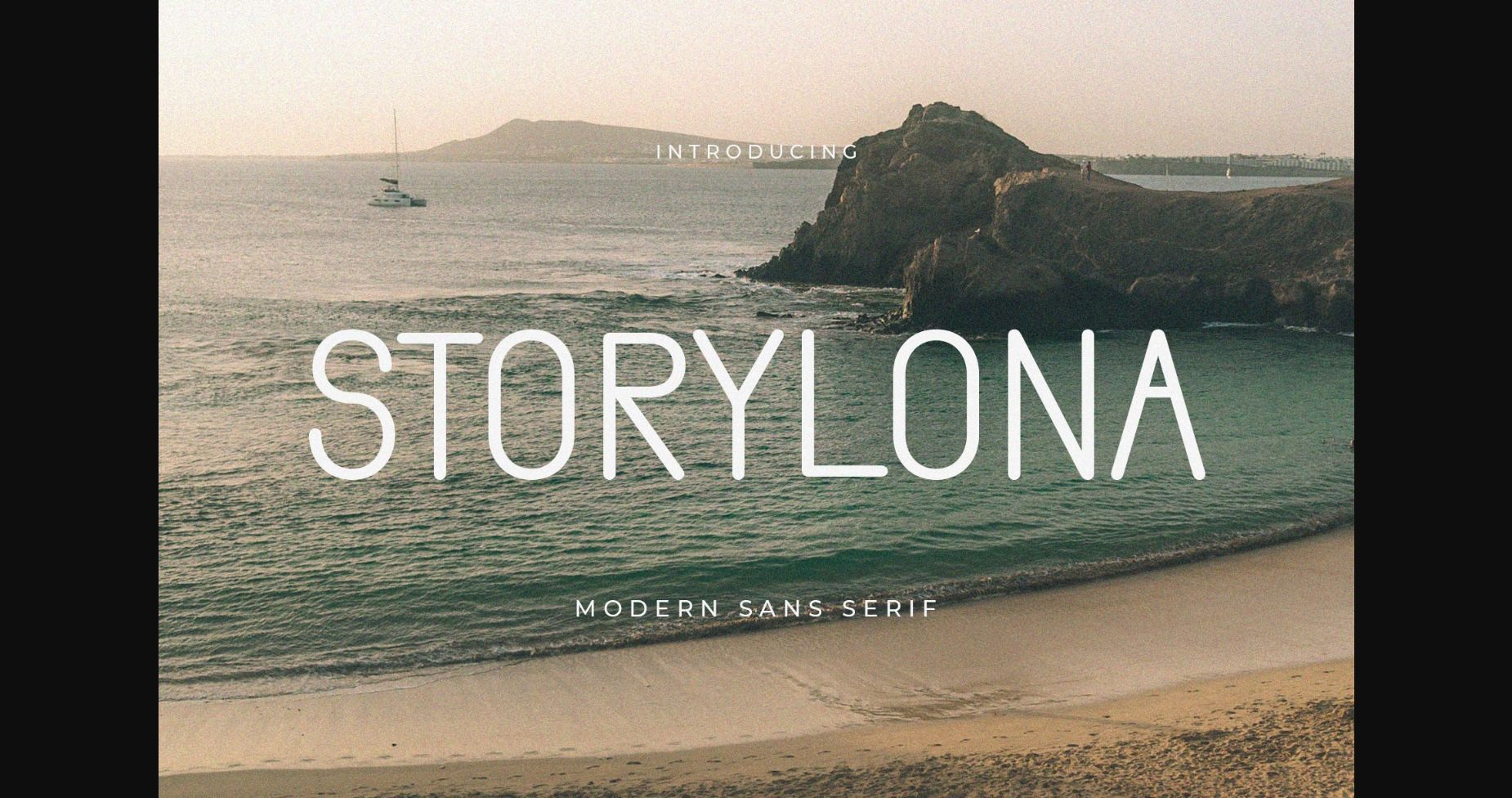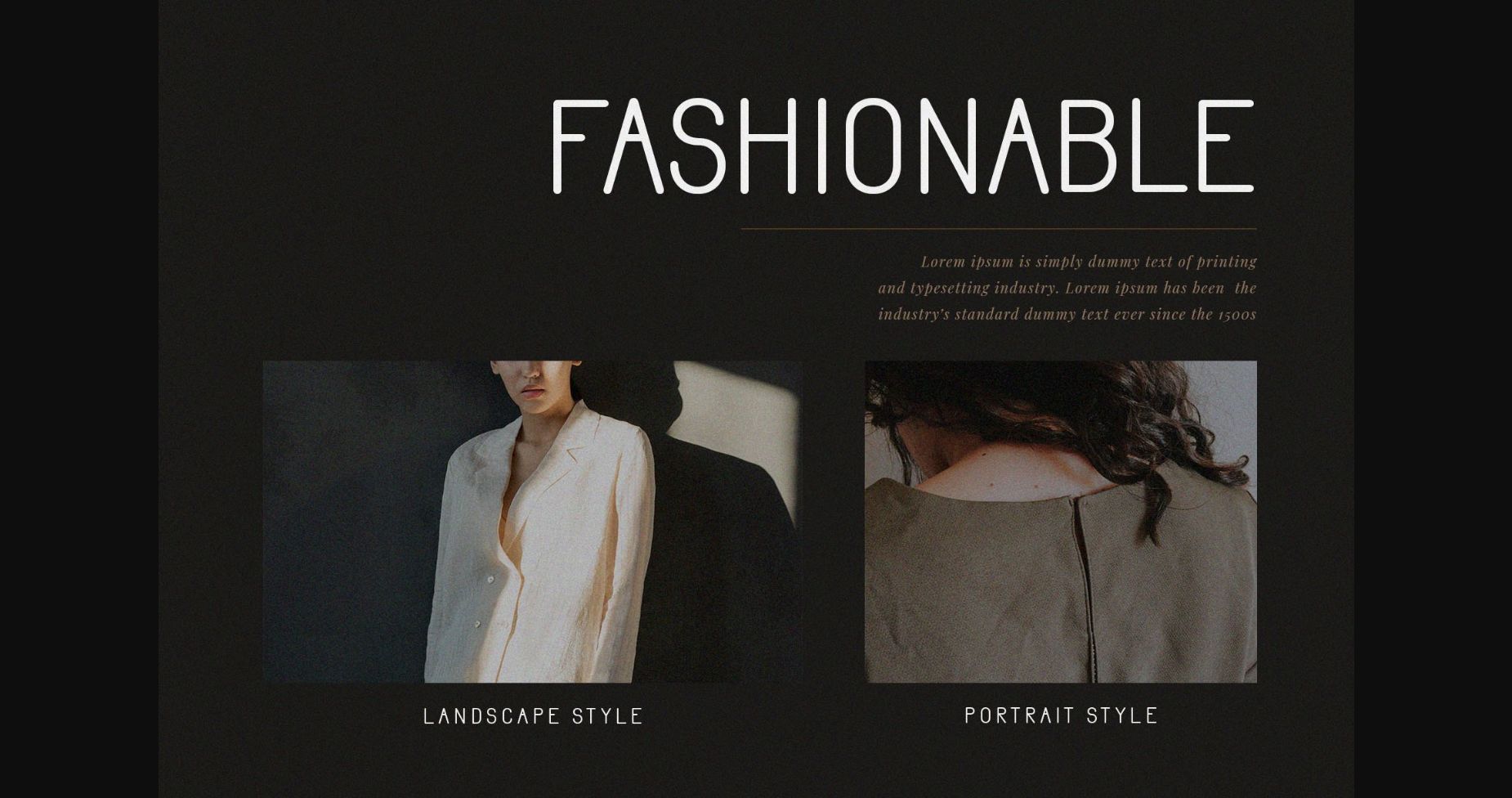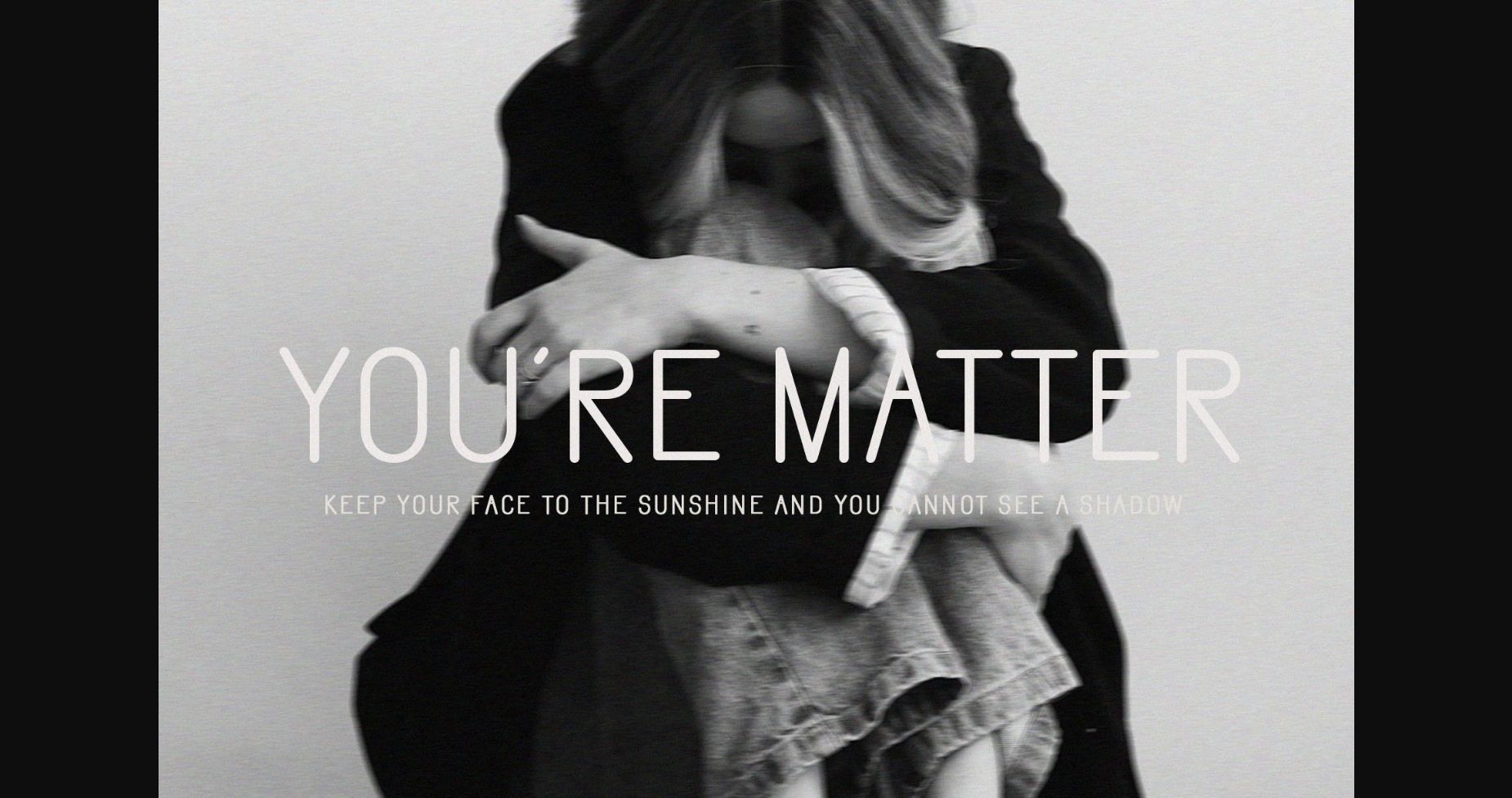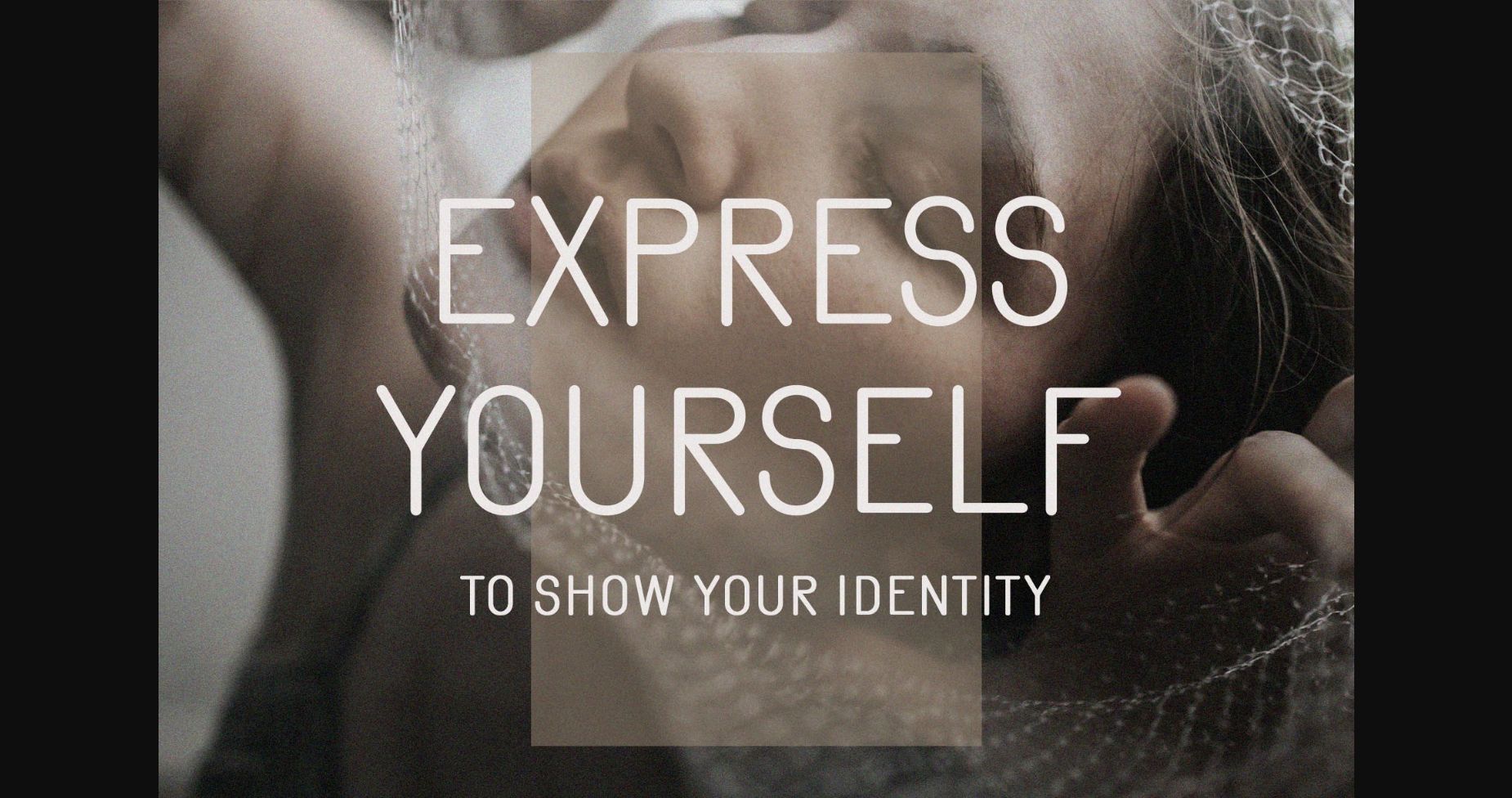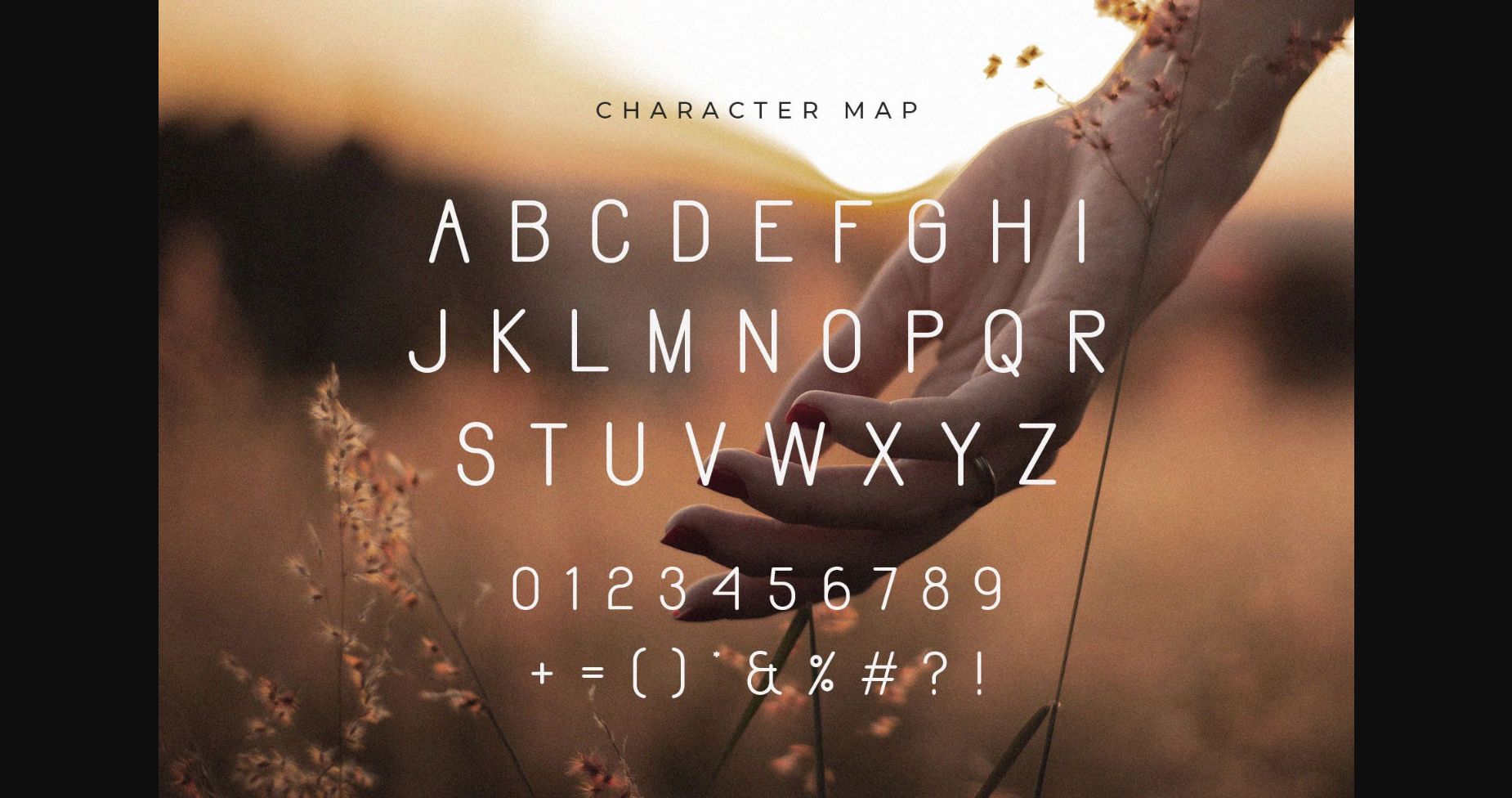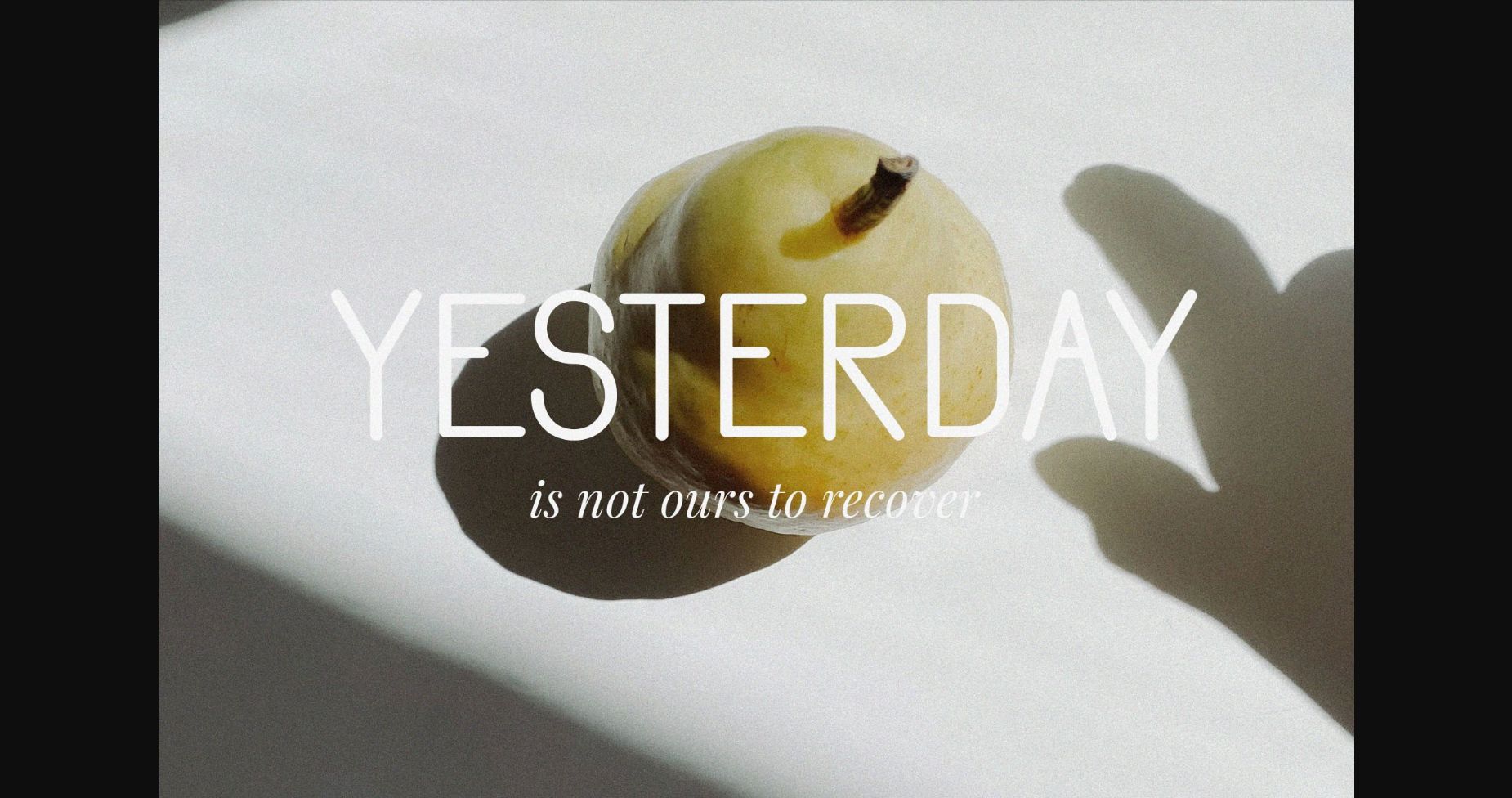
Storylona Font
About Storylona Font
Storylona is a cool and modern sans serif font that was carefully crafted to enhance a variety of projects. This font can be used to write titles, invitations, letters, and many other types of products.